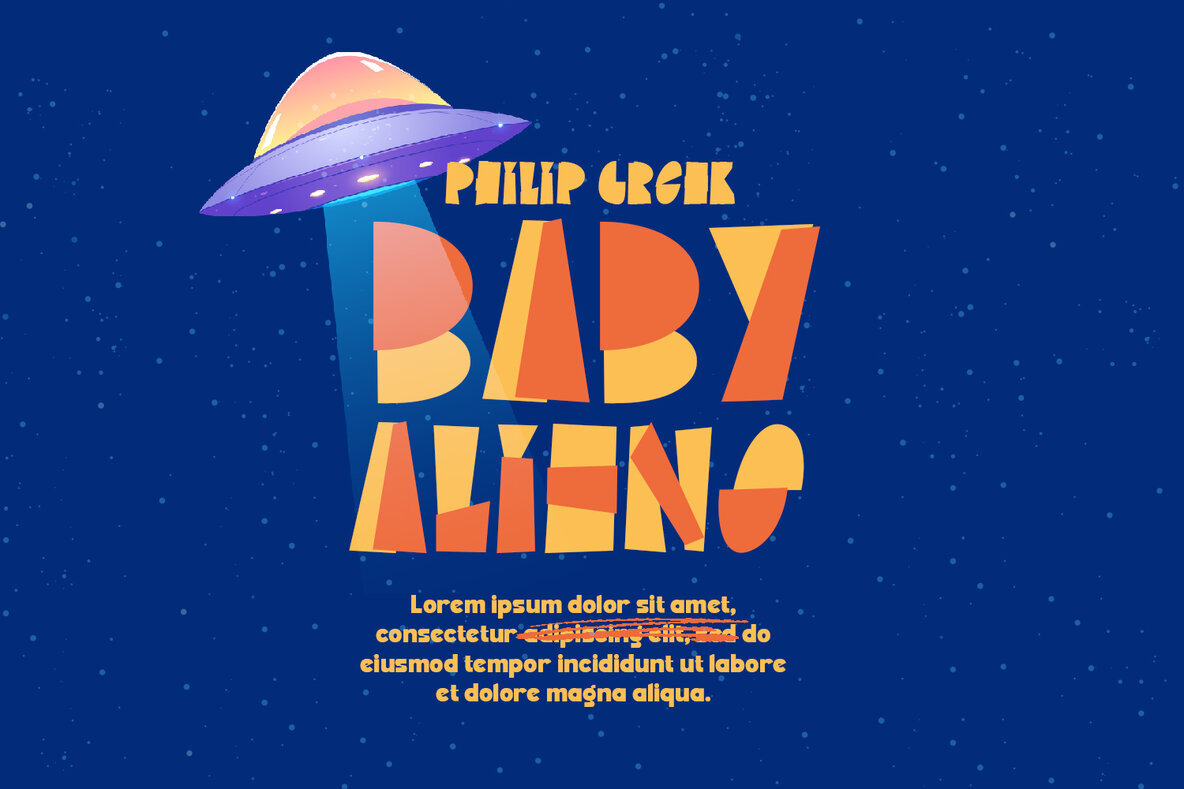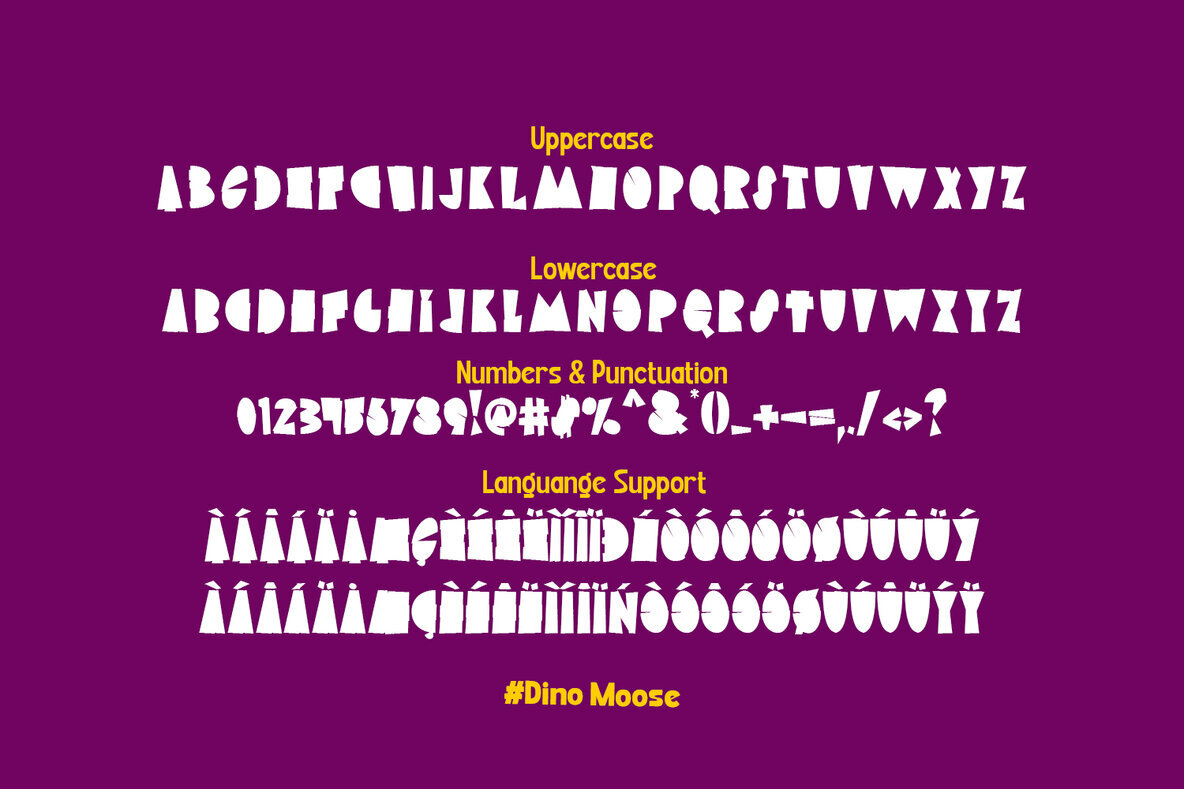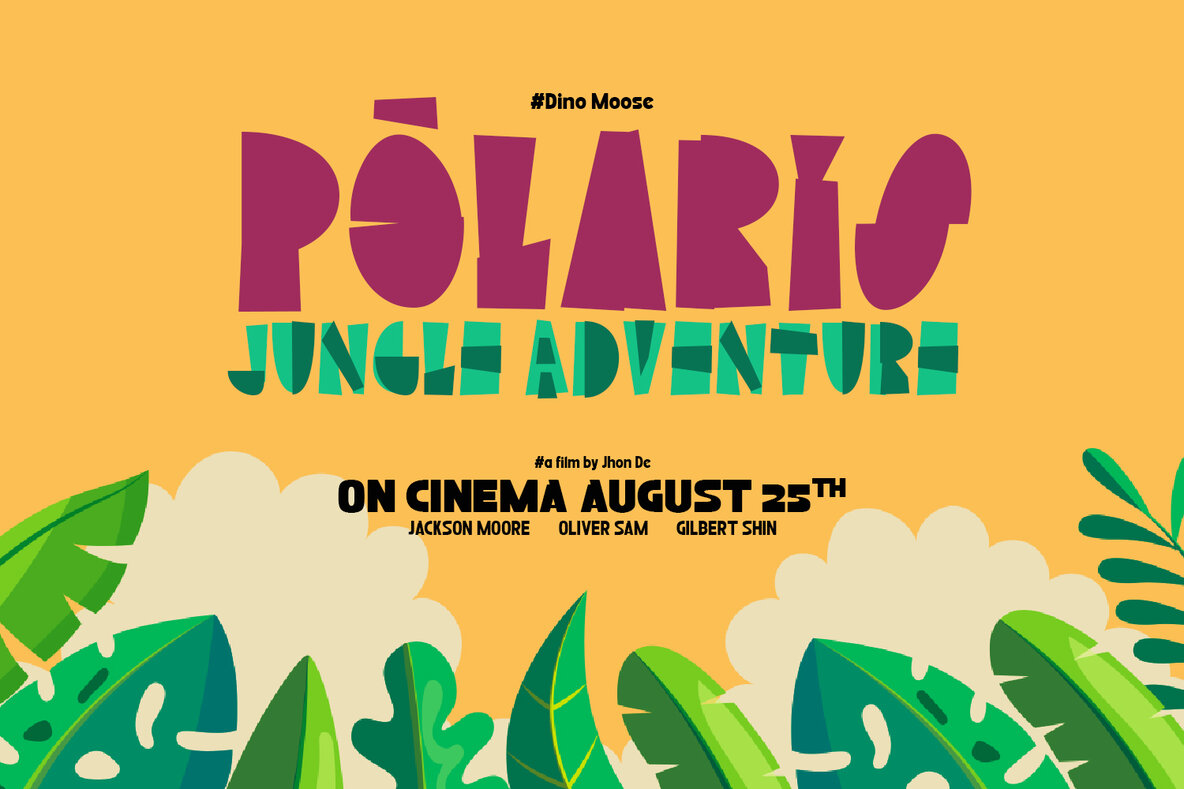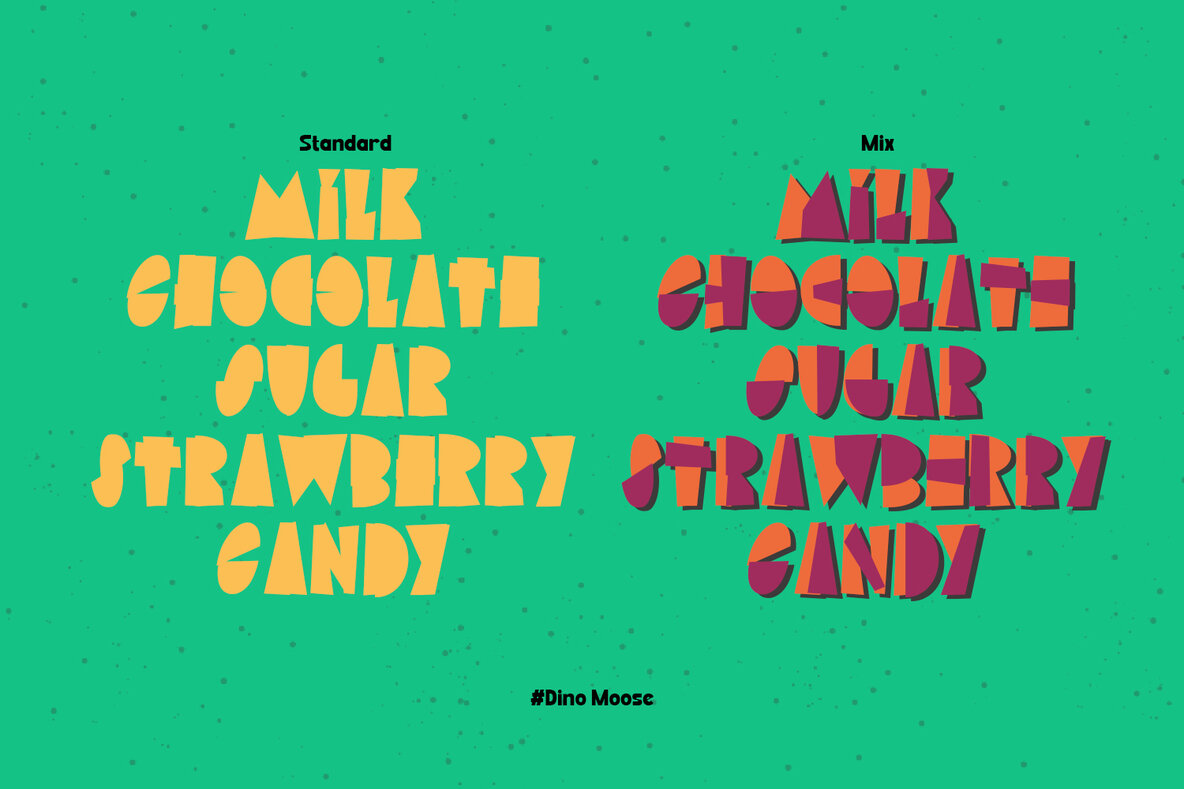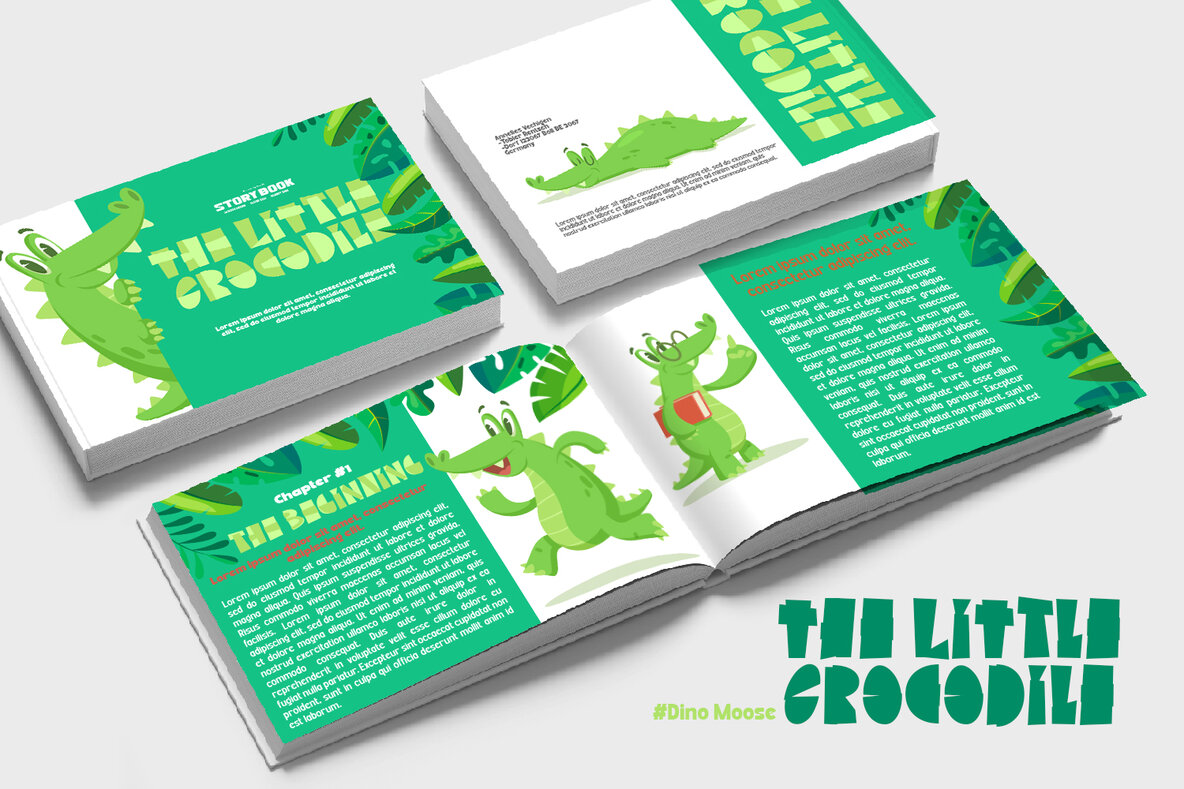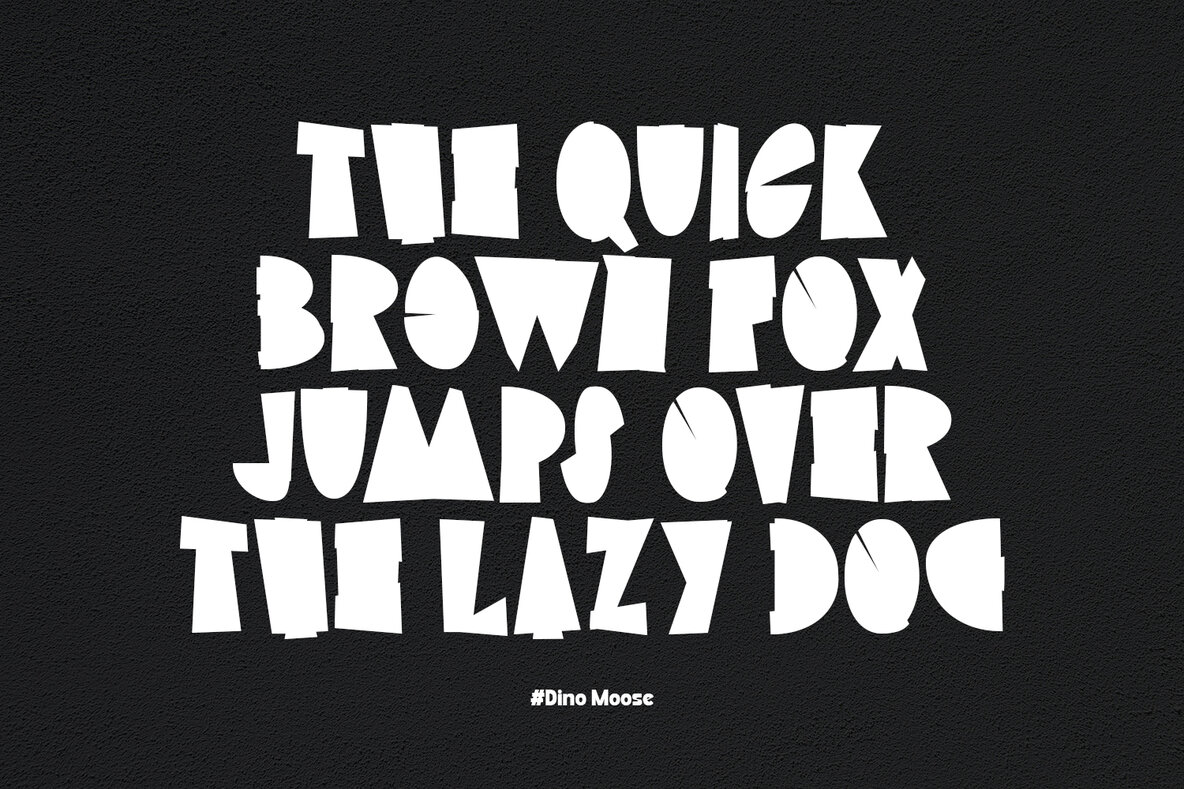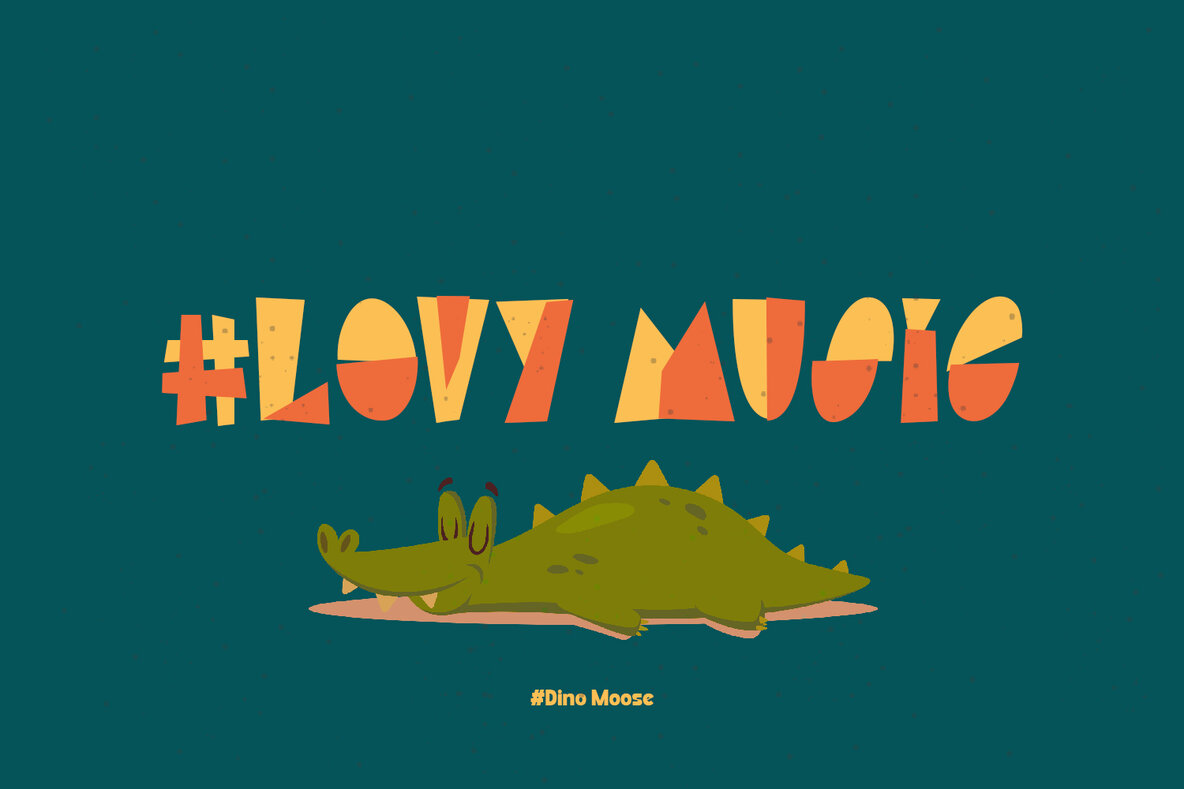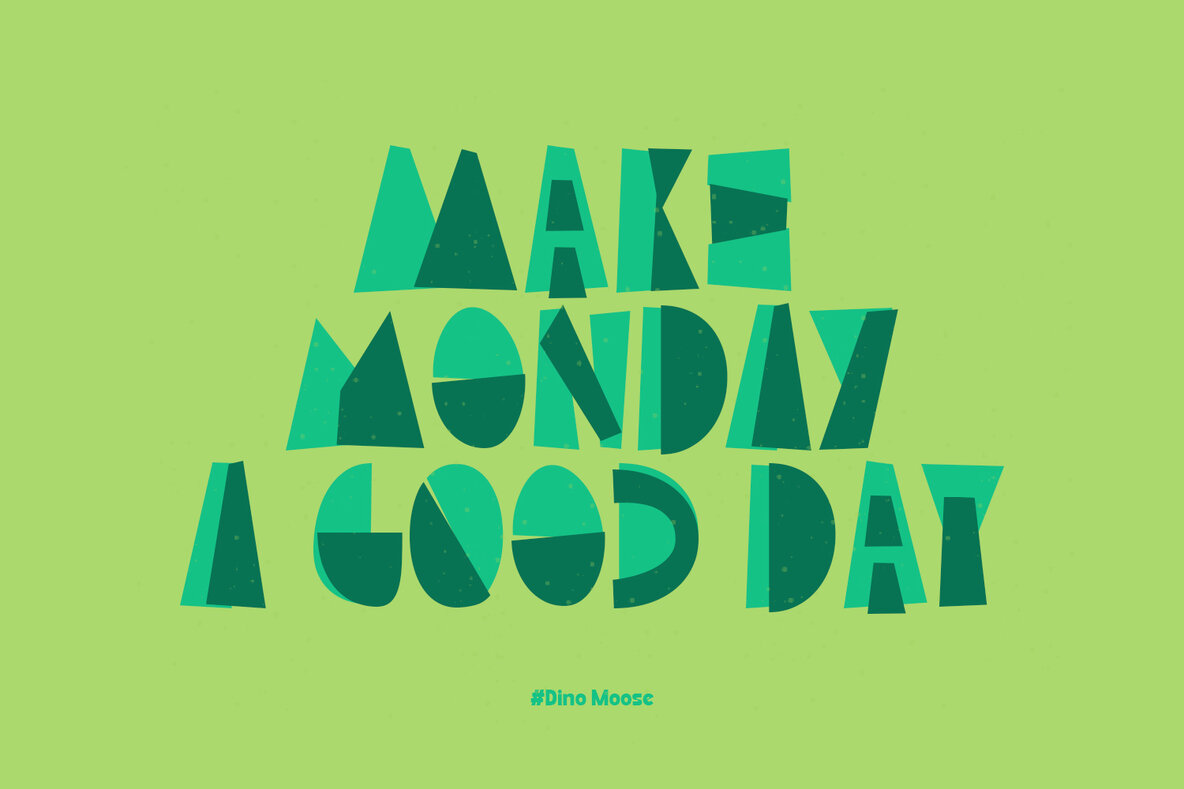
Dino Moose Font
Dino Moose brings a lighthearted touch to any creative project, making it an ideal choice for book covers, branding titles, or eye-catching product packaging. Whether you're working on invitations, quotes, t-shirts, labels, posters, or logos, this playful font provides versatility and charm across various formats. Its friendly, welcoming style lends a whimsical quality that is sure to engage audiences. Features:Dino Moose: A Playful Font for Diverse Applications